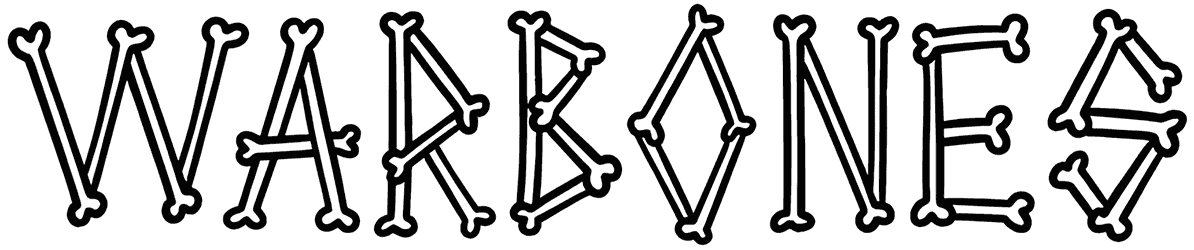
Warbones Font
Even the first time you include a magical Halloween font the same as the Warbones in your graphic content, you can immediately feel how it makes them look totally outstanding alongside their counterparts.
Aside from the lack of numbers, this all-caps bone font can be your reliable assistant in the realm of designing gift cards, greeting cards, magazines, book covers, or product packaging. Due to its geometrical style, it carries a sense of jauntiness, uniqueness, drama, or vitality.